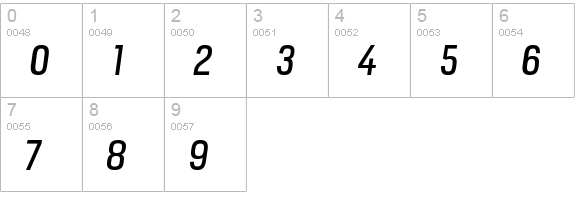
HeronSansCond Italic is a distinctive, italic variant in the HeronSansCond typeface family \xE2\x80\x94 well suited to design and typography projects.
HeronSansCond Italic is a sleek and modern font that exudes elegance and sophistication. With its slanted design, this typeface adds a touch of flair and style to any project. The italicized version of HeronSansCond brings a unique twist to traditional sans-serif fonts, making it perfect for adding emphasis or creating a sense of movement in your text. What makes HeronSansCond Italic even more appealing is the fact that it is completely free to download. That's right - you can access this stunning font at no cost on FontsMarket.com. Whether you're designing a website, creating marketing materials, or working on a personal project, HeronSansCond Italic is a versatile option that will elevate your work to the next level. Don't miss out on the opportunity to enhance your designs with HeronSansCond Italic. Download this stylish and sophisticated font today and see the difference it can make in your projects.